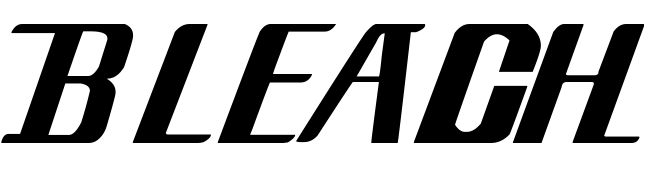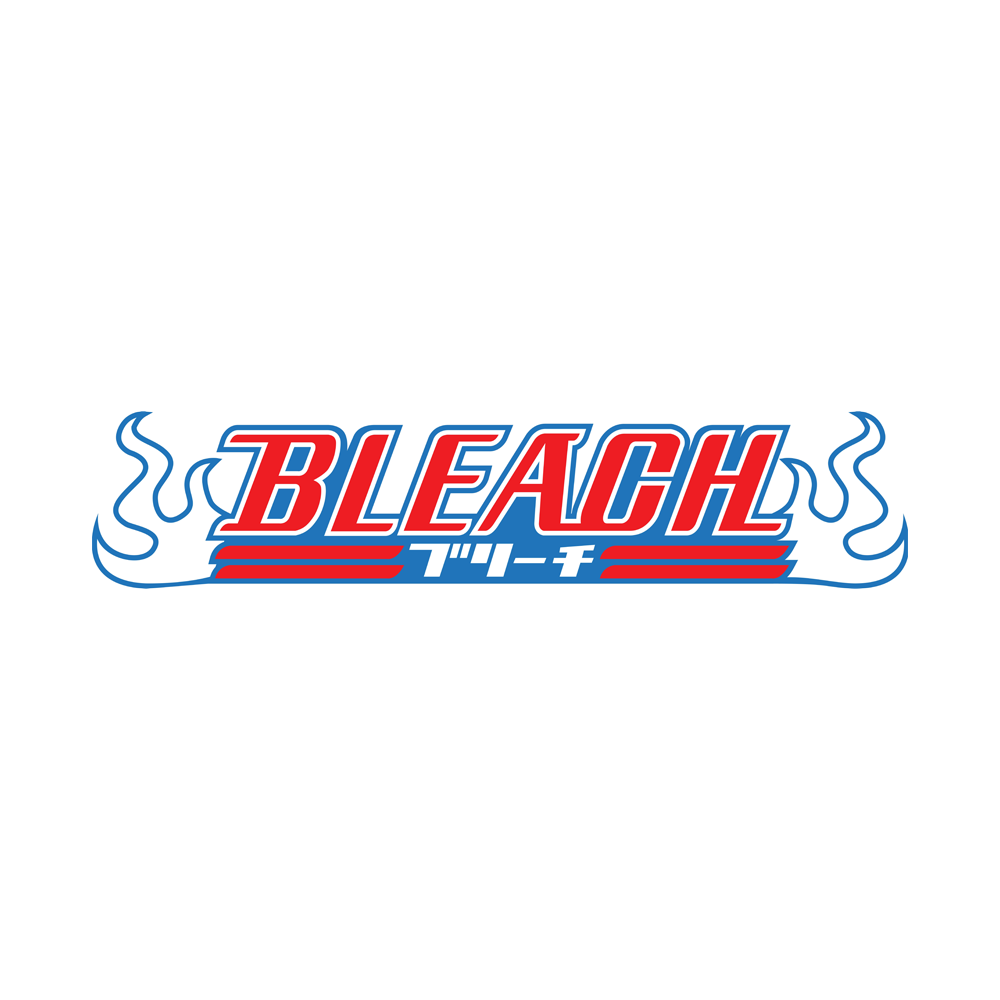
Bleach Font
Movie & TVBleach is a popular Japanese manga and anime series created by Tite Kubo. It follows the story of Ichigo Kurosaki, a high school student with the ability to see spirits, as he becomes a substitute Soul Reaper and protects the human world from evil spirits and hollows.
The Bleach logo font was custom made but has been recreated as Bleach Font by Danilo Belardinelli. The font is free for personal use.